When you walk into a café or restaurant, the atmosphere tells you everything before the food even arrives. From the signage to the menu, typography plays a huge role in shaping first impressions. The right fonts for restaurant and café branding can create an emotional connection, tell your brand story, and even influence appetite.
In today’s competitive F&B market, customers don’t just buy food—they buy experiences. That’s why choosing the right fonts for your café logo and restaurant menu design is a non-negotiable step for success.
Your café logo is the first handshake with your customers. It must communicate personality at a glance. Should it feel cozy and homemade? Or modern and luxurious? Fonts are the visual shortcut to express that feeling.
This is where fonts like Brotherside and Graphiel shine. Brotherside delivers a flowing, stylish signature look, perfect for café logos that want to feel artisanal and authentic. Meanwhile, Graphiel offers bold curves that add confidence and charm to any F&B branding.
Menus are more than price lists; they are storytelling tools. The fonts you use on restaurant menus influence how customers perceive value, taste, and even decision-making.
Take Bakso Tahu. With its playful handwritten vibe, it brings joy and lightness to menus, making them feel casual yet exciting. On the other hand, Break Fridays offers clean, confident strokes that fit perfectly in premium café menu headers.
Typography doesn’t just sit on logos or menus—it transforms the entire atmosphere. Imagine two cafés:
Both choices align with the brand’s story, proving that fonts for café branding can redefine ambience just as much as interior design.
Ontro Buck – Bold strokes that add artistic flair to café logos.
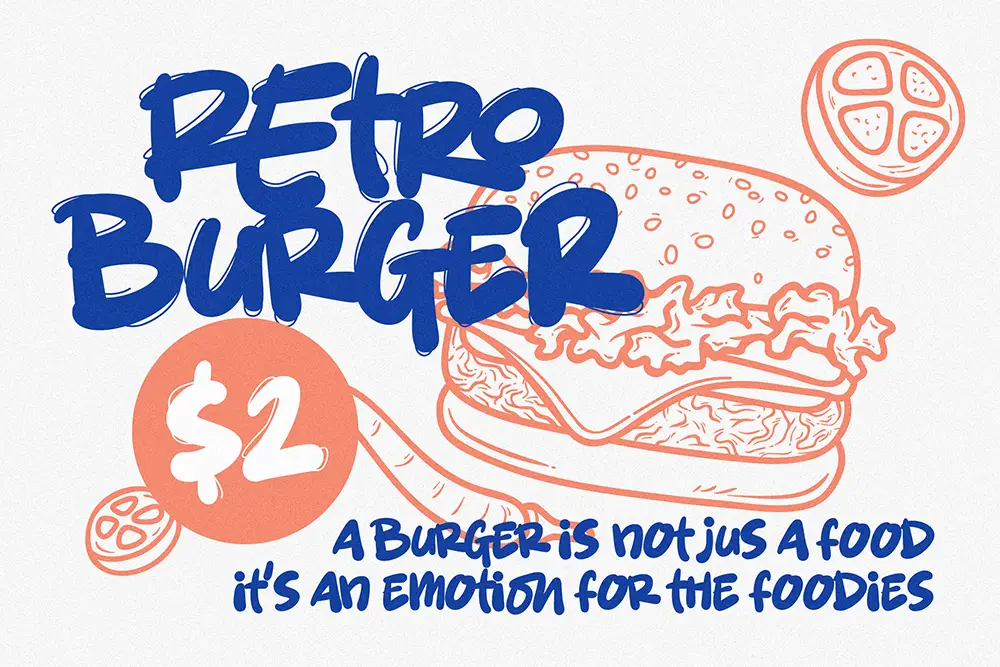
Grow Boys – Quirky and unconventional, great for trendy restaurants.
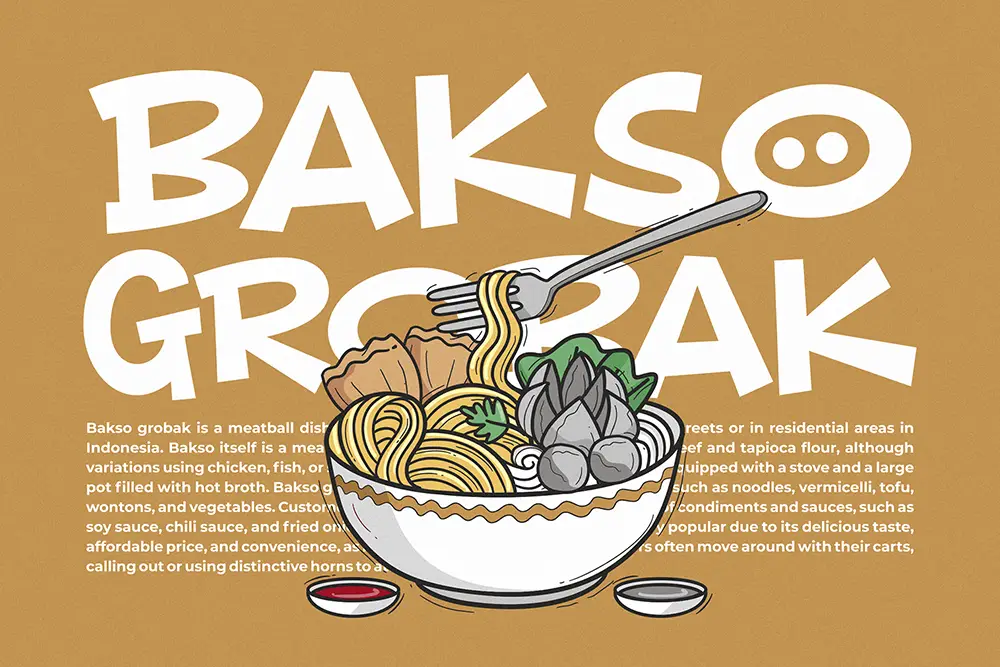
Brotherside – A stylish signature font for artisanal cafés.
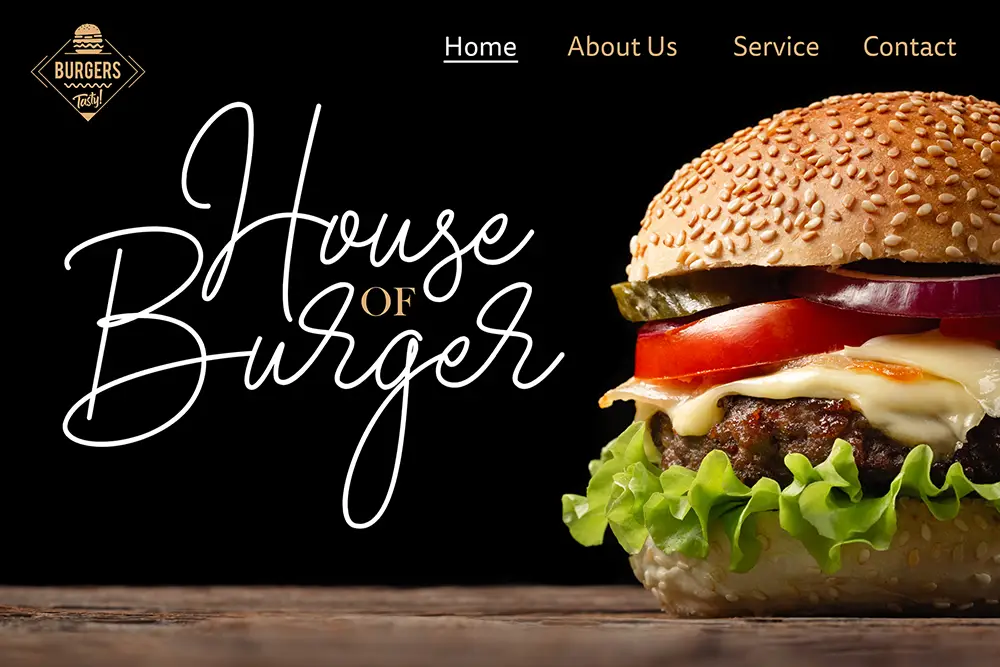
Bakso Tahu – Playful handwritten font, perfect for casual menus.
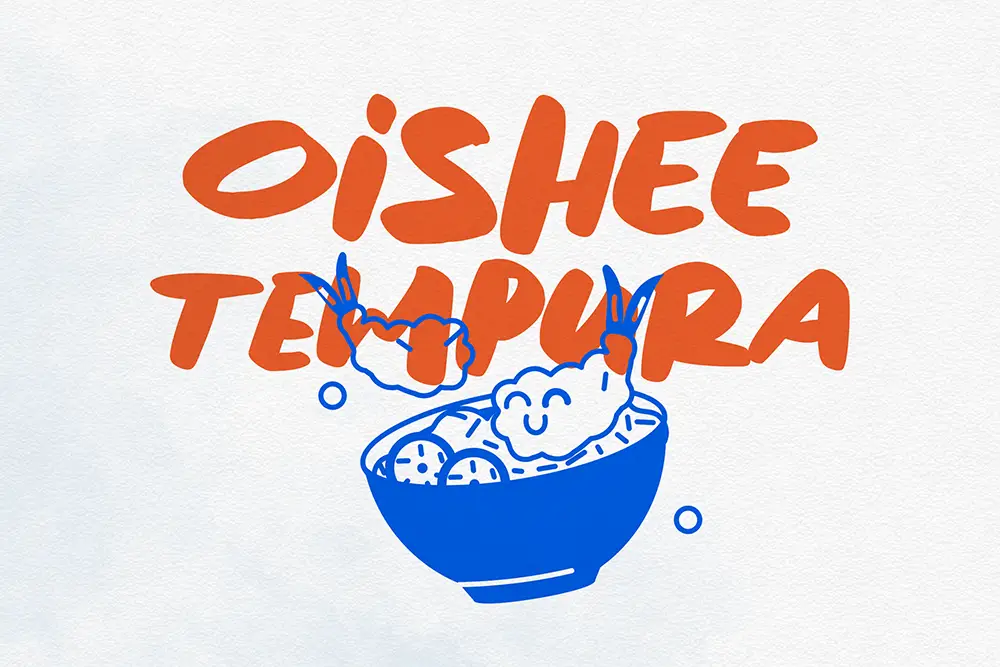
Break Fridays – Clean bold script, perfect for strong menu headers.
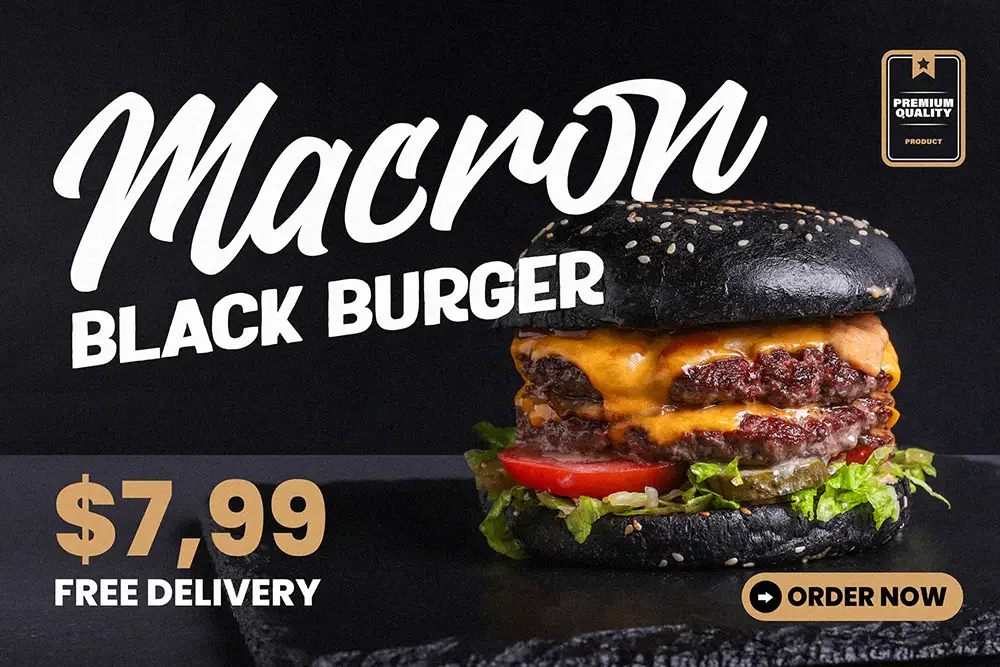
Graphiel – Modern bold script that creates confidence in logos.
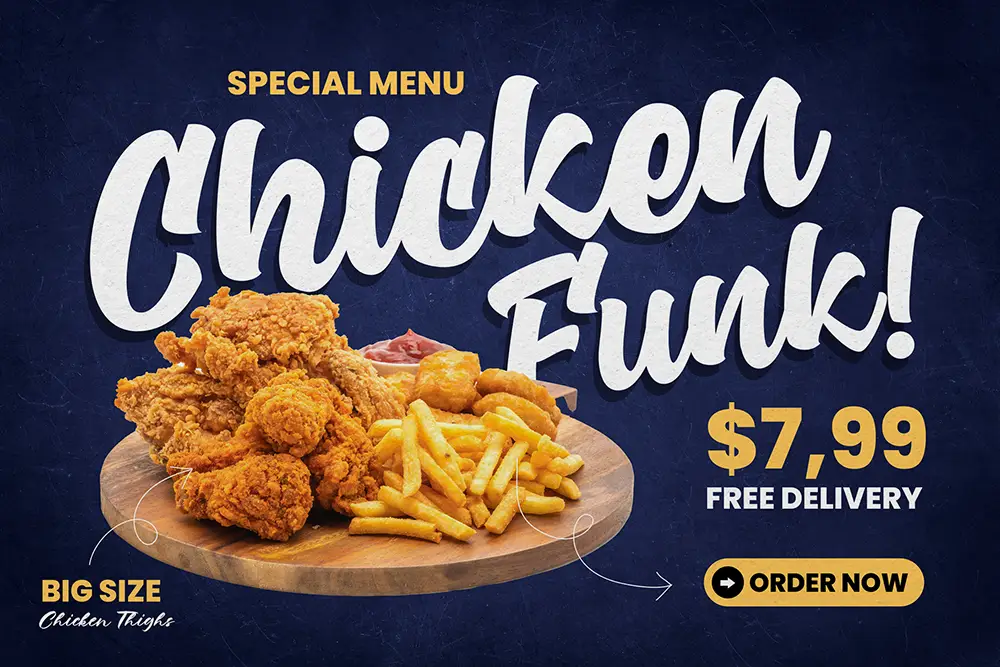
Metro Beardy – Retro bold style, great for packaging and signage.
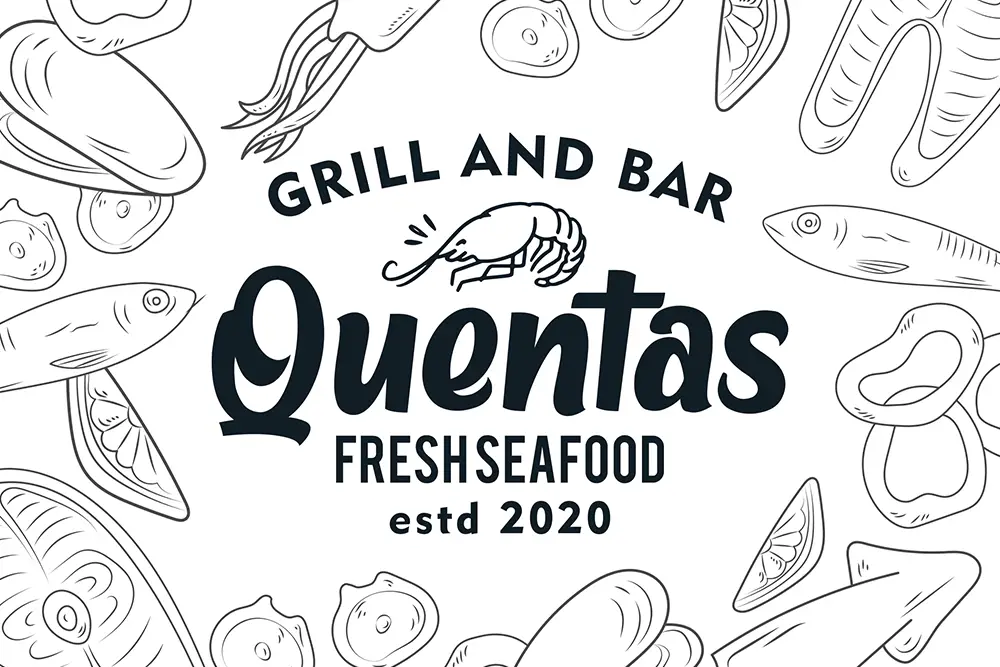
Rudgion – Strong visual for café branding identity.
When working with café owners and restaurant designers, one insight stands out: fonts are not decoration—they are strategy. Choosing the wrong typeface can create a mismatch between brand promise and customer perception.
As branding expert Marty Neumeier wrote in The Brand Gap:
“A brand is not what you say it is. It’s what they say it is.”
In the F&B world, if your café logo feels cheap but your menu prices are premium, customers will feel a disconnect. That’s why we recommend fonts like Brotherside for elegance or Grow Boys for modern quirkiness—to align brand story with customer expectation.
Fonts are the secret ingredient in café and restaurant branding. They don’t just decorate—they persuade, attract, and sell. By carefully selecting typefaces for your café logo and restaurant menu, you give your F&B brand the power to stand out in 2025’s crowded market.